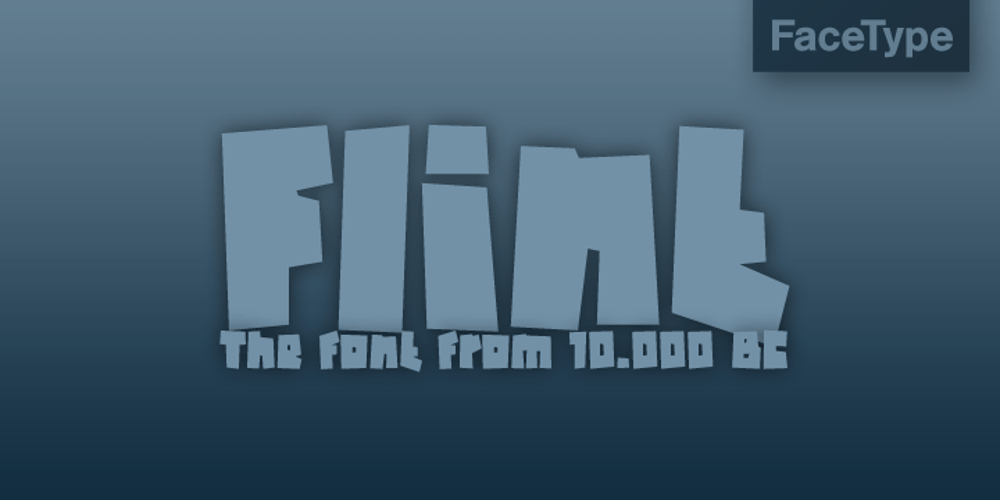
Flint Font Family was designed by Marcus Sterz and published by FaceType. Flint contains 1 styles and family package options. Meet the Flint font! A typeface that rocks – litterally. If Caveman could write, it would possibly look exactly like Flint.